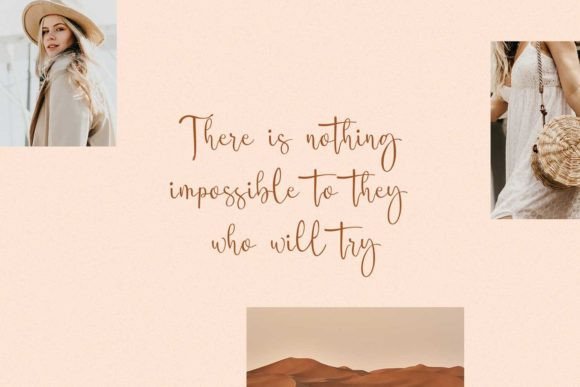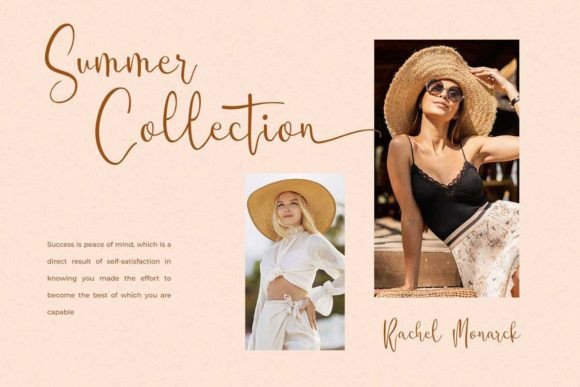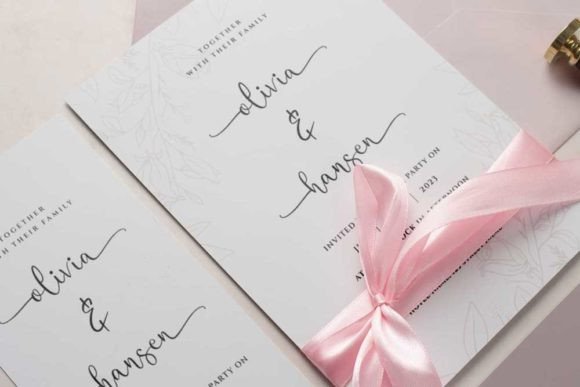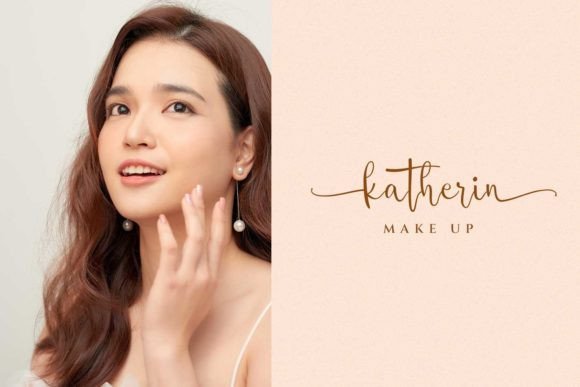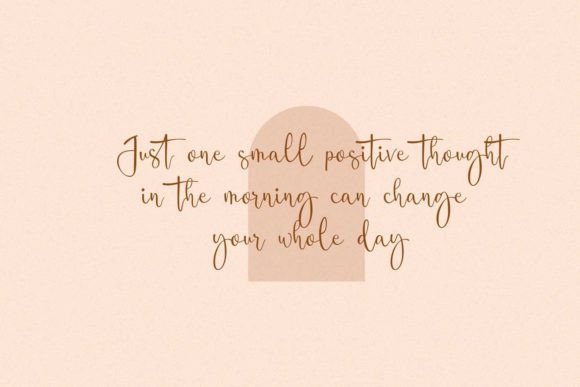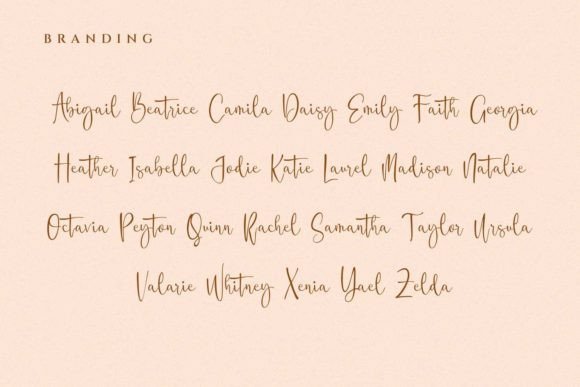
Introducing Amelta Font: The Ultimate Calligraphy Choice for Designers
Are you a designer or crafter looking for a font that exudes modernity, femininity, and elegance? Look no further than Amelta Font, a stunning calligraphy font that’s perfect for a wide range of design projects. In this article, we’ll dive into the features and benefits of Amelta Font, and explore how it can elevate your designs to the next level.
What is Amelta Font?
Amelta Font is a beautifully crafted calligraphy font that’s designed to be modern, feminine, and catchy. Its elegant strokes and flowing lines make it perfect for creating sophisticated and eye-catching designs. Whether you’re working on a wedding organizer, signature logo design, quotes, album cover, or business card, Amelta Font is the great choice.
Key Features of Amelta Font
So, what makes Amelta Font so special? Here are some of its key features:
- Basic Latin A-Z and a-z: Amelta Font includes a full range of basic Latin characters, making it easy to use for a variety of design projects.
- Numerical and Functional: In addition to letters, Amelta Font also includes numerical and functional characters, giving you even more flexibility.
- Alternate and Ligature: Amelta Font features alternate and ligature options, allowing you to add an extra touch of elegance and sophistication to your designs.
- Begin and End Swashes: The font includes begin and end swashes, making it easy to create beautiful, flowing lines.
Design Project Ideas with Amelta Font
So, what can you create with Amelta Font? Here are some design project ideas to get you started:
- Wedding Organizer: Use Amelta Font to create beautiful wedding organizers, planners, and invitations.
- Signature Logo Design: Create stunning signature logos and watermarks with Amelta Font.
- Quotes and Typography: Use Amelta Font to create inspirational quotes, typography posters, and social media graphics.
- Album Cover: Design eye-catching album covers and music artwork with Amelta Font.
- Business Card: Create professional business cards and stationery with Amelta Font.
Why Choose Amelta Font?
So, why should you choose Amelta Font for your design projects? Here are just a few reasons:
- Feminine and Elegant: Amelta Font exudes femininity and elegance, making it perfect for designs that require a touch of sophistication.
- Modern and Catchy: Amelta Font is modern and catchy, making it perfect for designs that require a fresh and contemporary look.
In conclusion, Amelta Font is a stunning calligraphy font that’s perfect for designers and crafters looking for a modern, feminine, and elegant font. With its range of features, including basic Latin characters, numerical and functional characters, alternate and ligature options, and begin and end swashes, Amelta Font is the great choice for a wide range of design projects. Whether you’re working on a wedding organizer, signature logo design, quotes, album cover, or business card, Amelta Font is sure to elevate your designs to the next level.